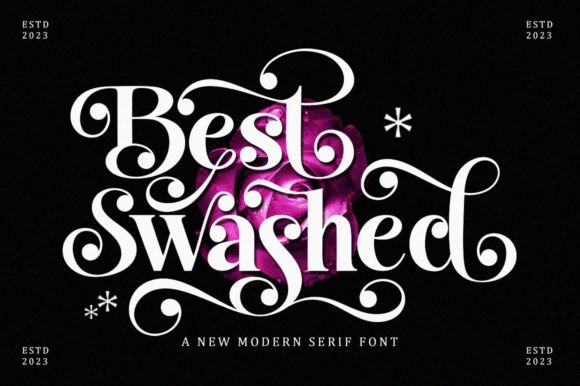
Best Swashed is a beautiful, versatile serif font. This font is characterized by a serif style with a luxurious style in a modern form, but also a friendly and playful style in bold, Best Swashed has glyphs to give crafters more options in designing. This modern style will make a design appear more classy, elegant, unique and edgy.
Best Swashed is a font suitable for many projects, for modern or even retro vintage designs, branding, logos, crafts, stickers, sublimation, wedding invitations, and more. This font is suitable for a variety of projects such as logos, branding, magazines, signage, fashion, and many more.
Uppercase and lowercase letters, Numbers and punctuation, Multilingual support, PUA encoded fonts, Alternative styles and ligatures